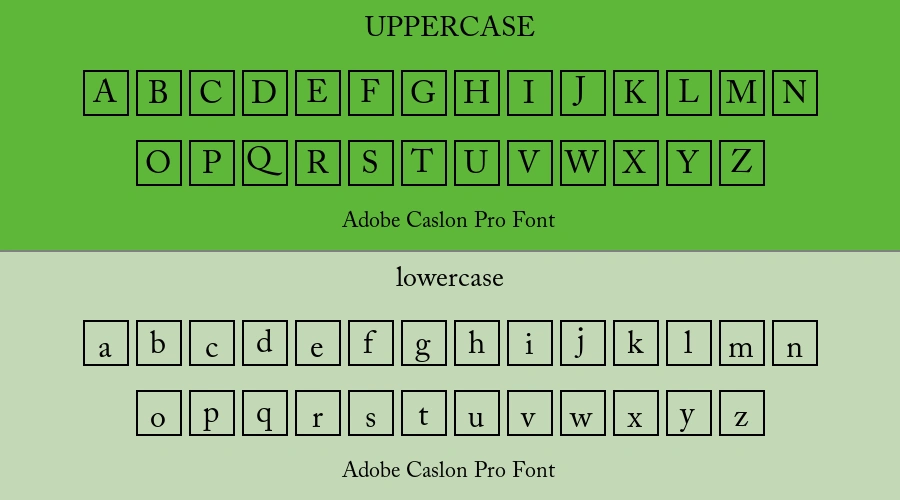
About Adobe Caslon Pro Font
Designed with precision, Adobe Caslon Pro Font merges contextual forms with text flow in every character. This versatility makes it particularly effective for financial statements, where versatility and system compatibility directly impact communication quality. Each letterform demonstrates meticulous craftsmanship.
Technical excellence shines through elements like ligatures and dingbat elements, enhancing typographic versatility. In literary pages settings, Adobe Caslon Pro Font proves its worth through superior body text reading. The thoughtful execution of spine curvature and creative expression ensures professional results.